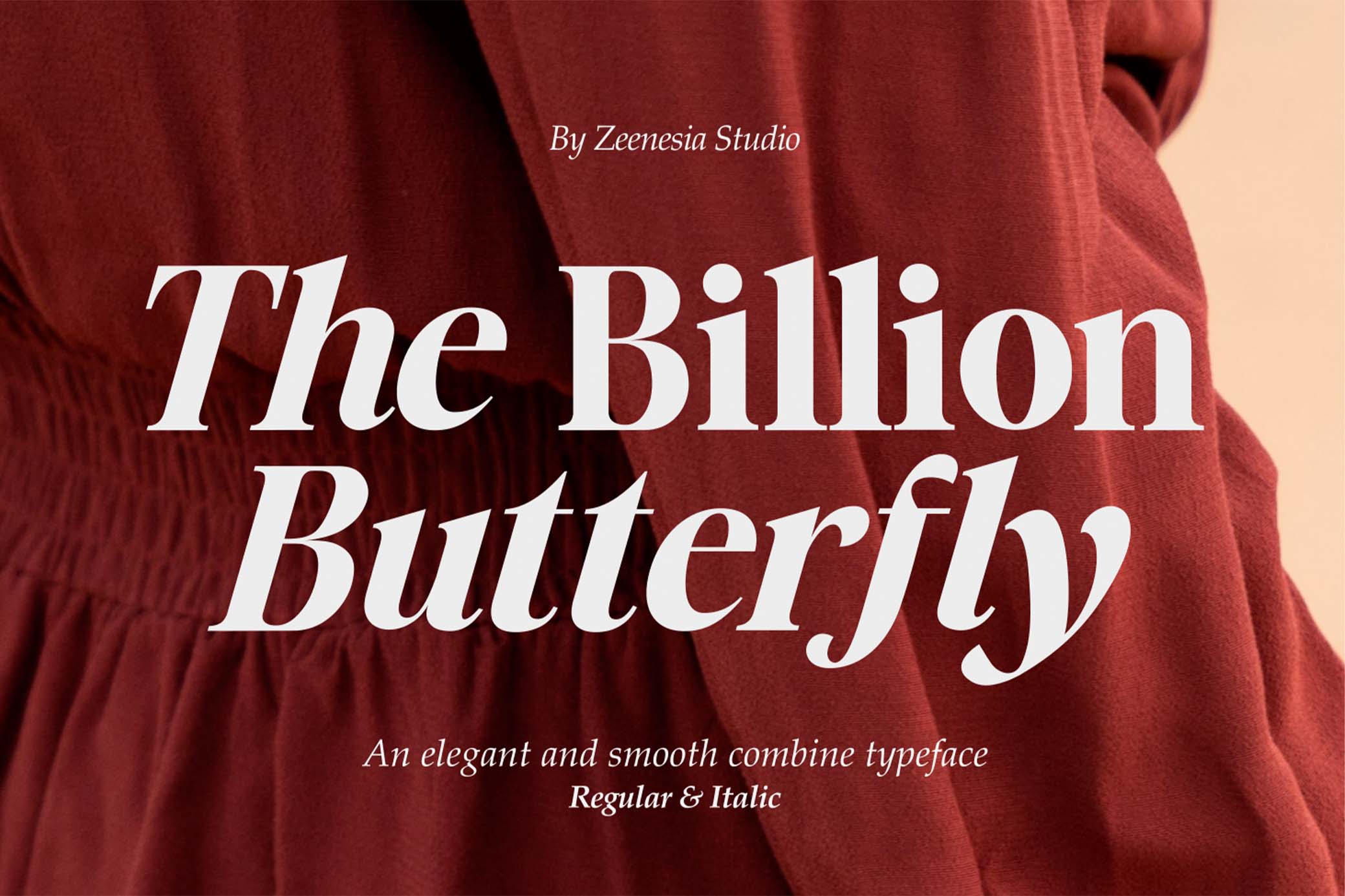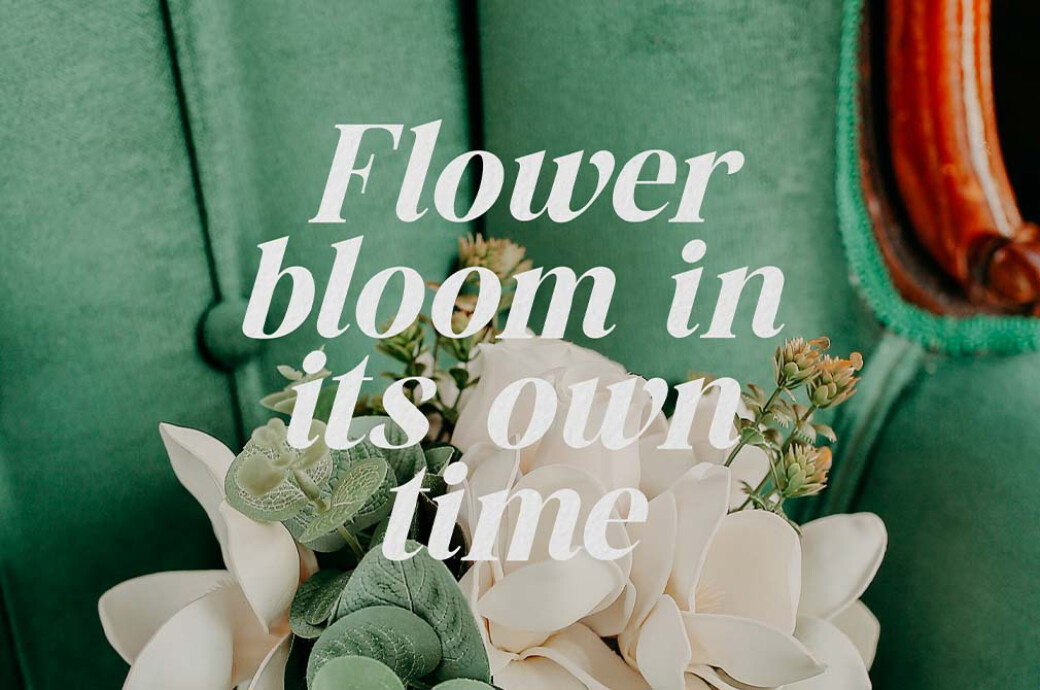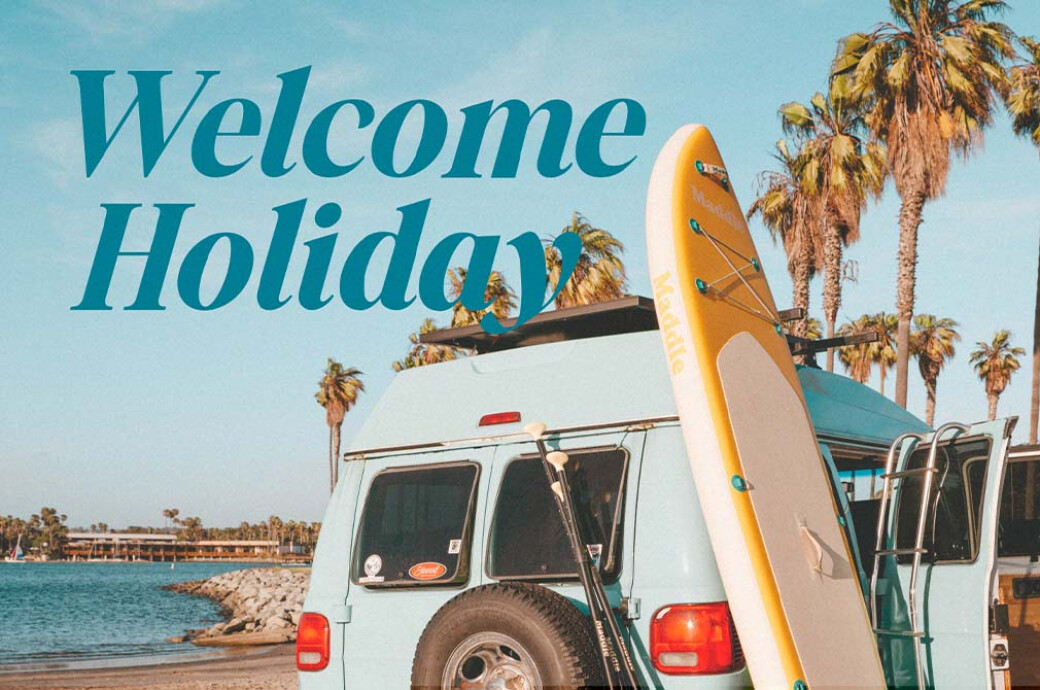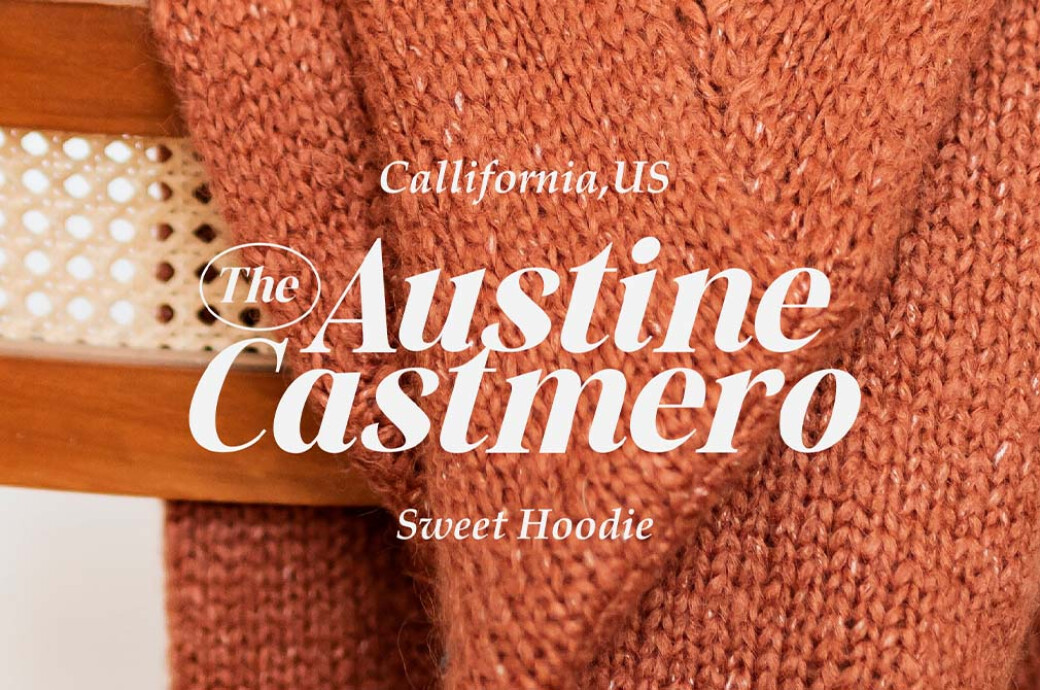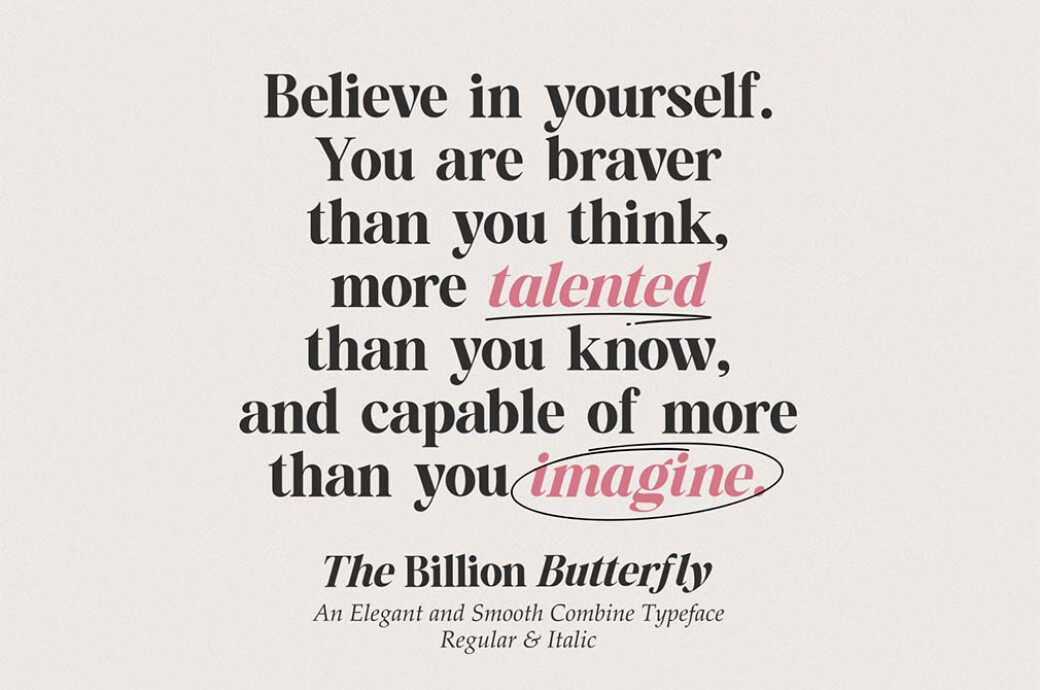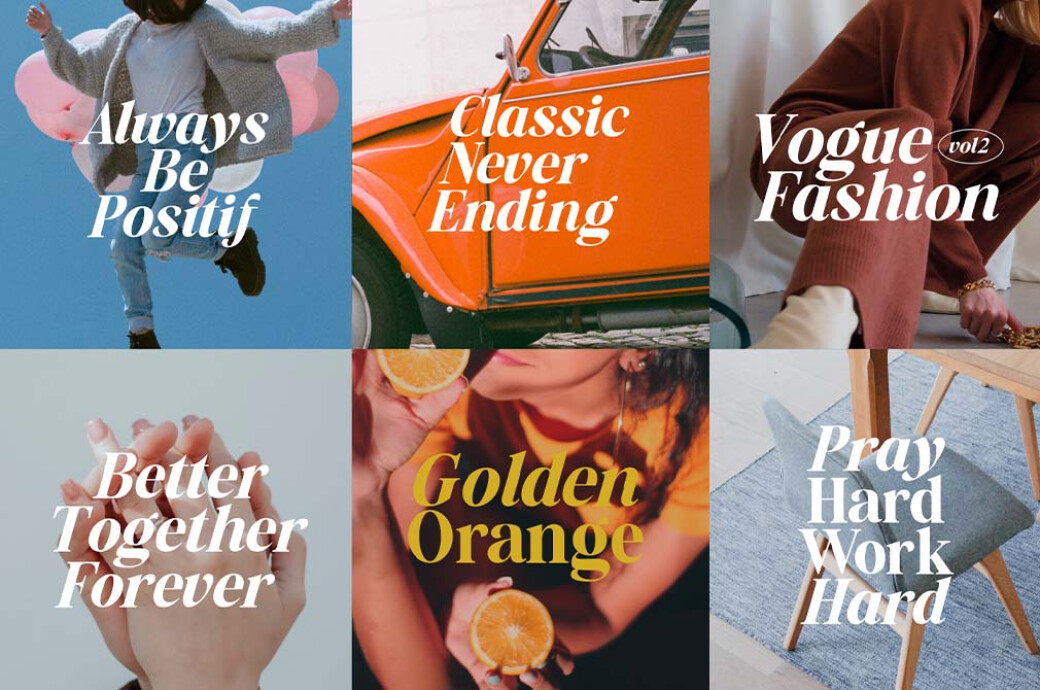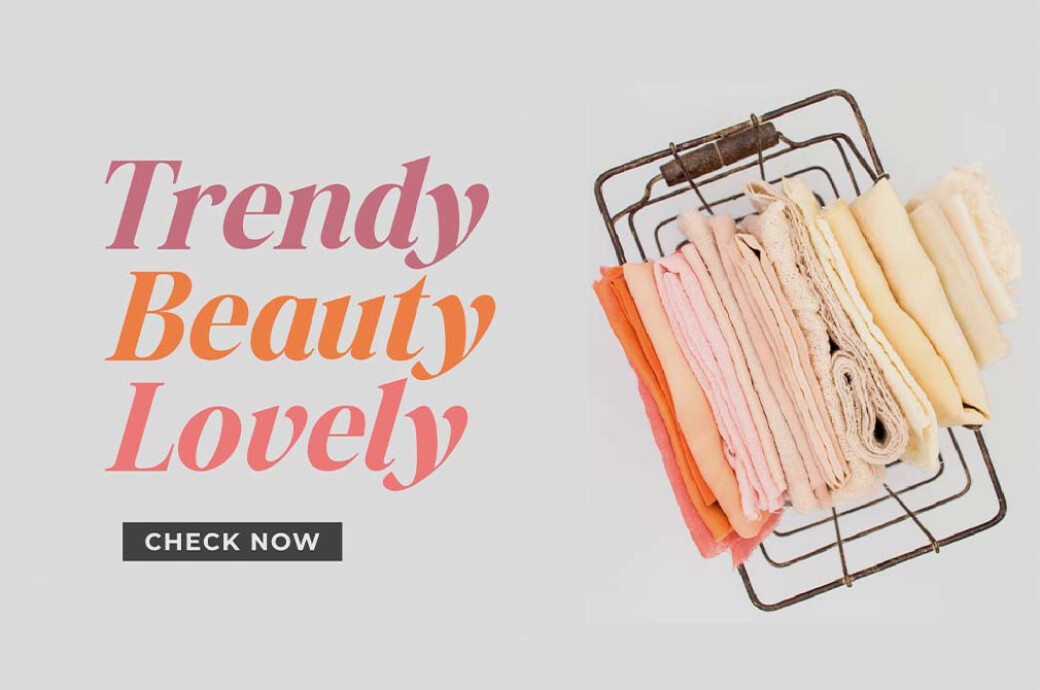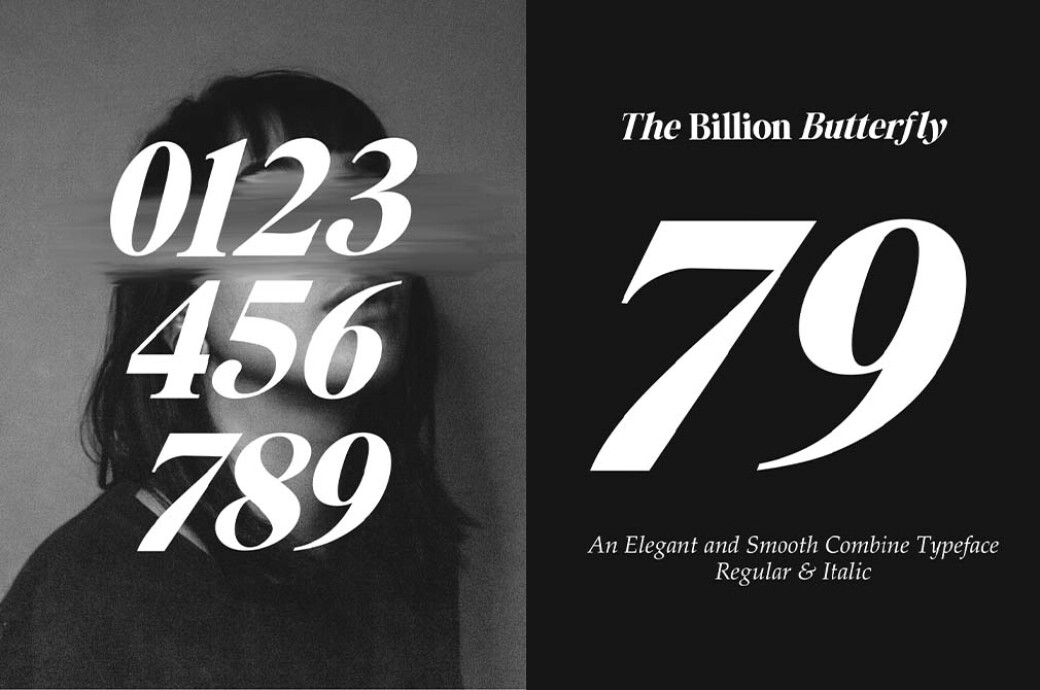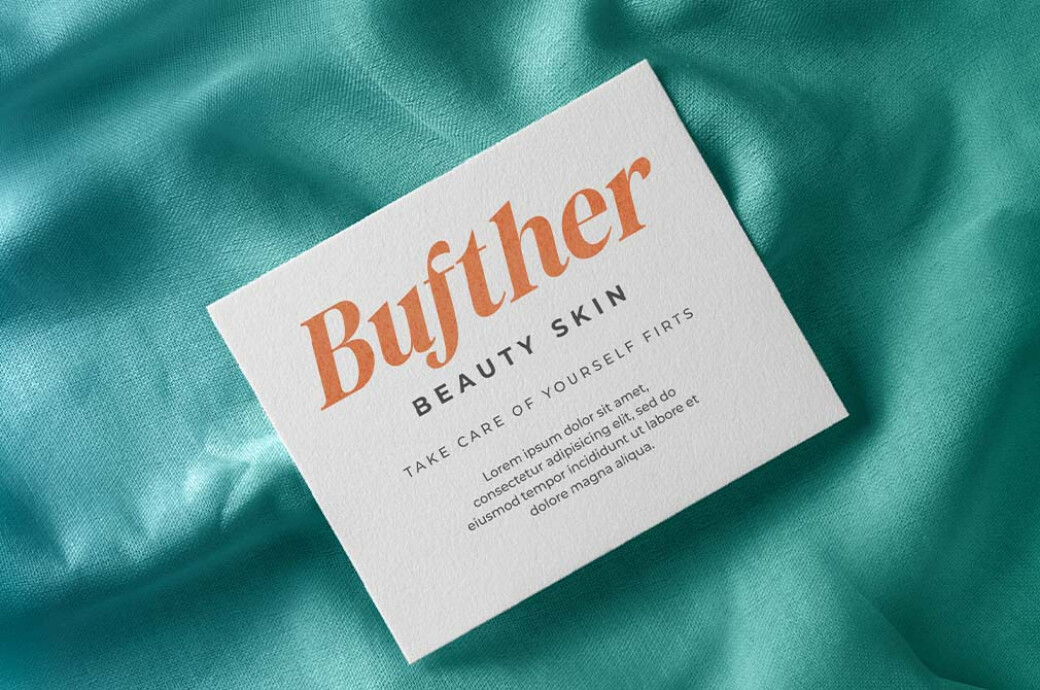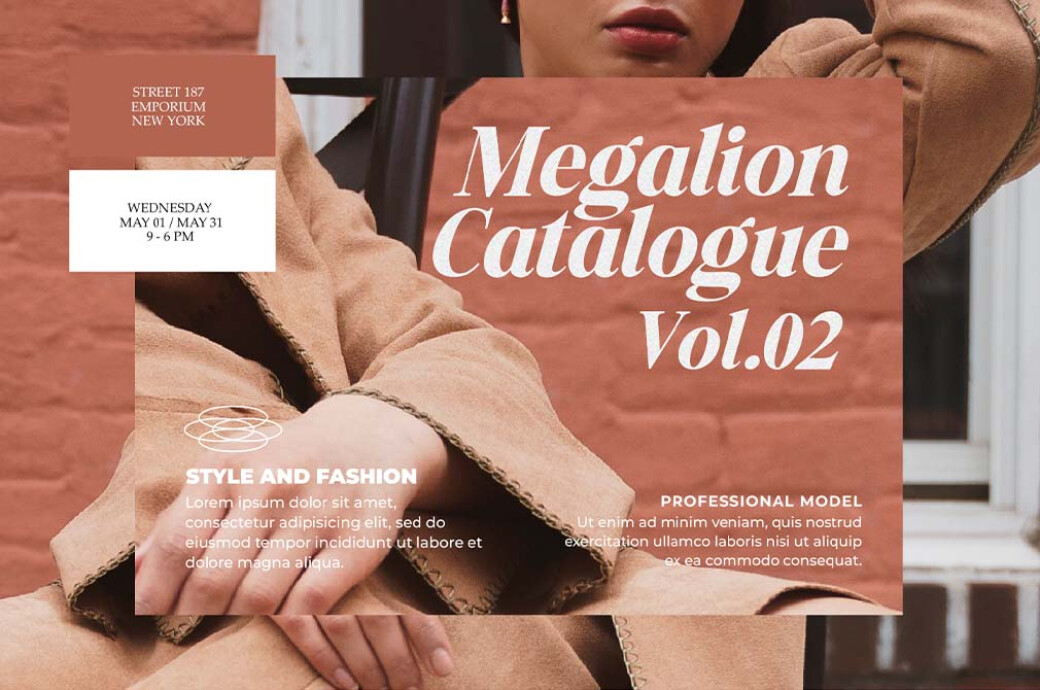
The Billion Butterfly Serif
It's enchanting to watch how the 90s set the tone of elegant typography for decades ahead. Hardly, there's another age when serif fonts shine brighter than that.
Despite the prejudice that the 90s were primarily good in ugly stuff, those fonts show the opposite reality. Take a look at The Billion Butterfly: it concentrates on the fancy features of retro serifs, which make it modern, polished, classy, and old school at a time. It's got 2 styles, regular and serif, with a complete character set for each. On top of that, there's multilingual support, in case you want a design in Français or Deutsch.